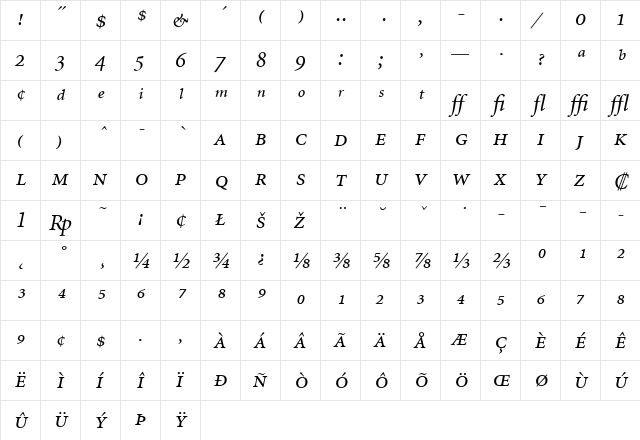
Minion Expert Italic
Design Context for Minion Expert Typeface
Minion Expert is a composed and adaptable typeface that performs quietly and consistently across a wide range of design contexts. The dynamic lean of this cut emphasises speed and emphasis in any layout.
Pro Tip: Use Minion Expert for emphasis, pull quotes, and subheadings where its slanted energy can add rhythm to the layout.